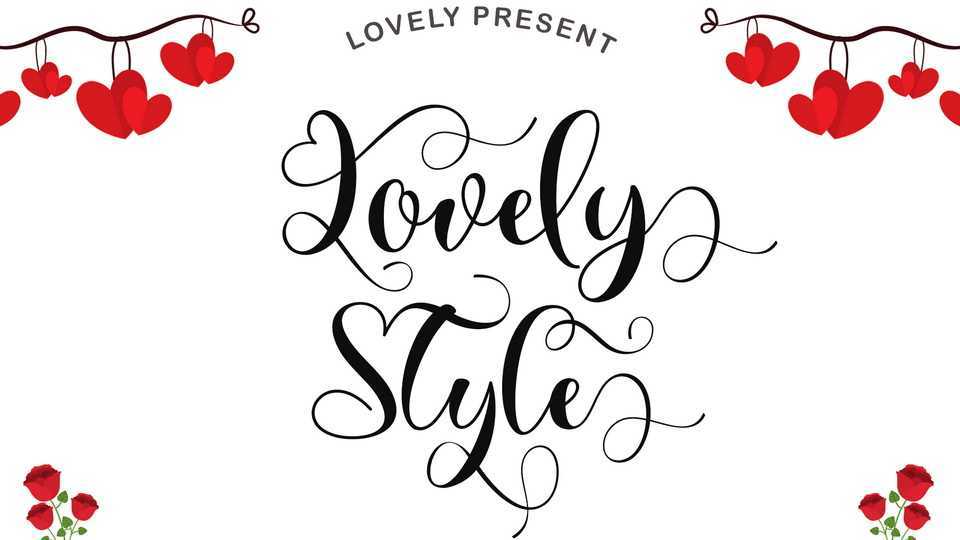
Download Lovely Style font, a very pretty script calligraphy typeface. Lovely Style font is perfect for weddings, valentines, engagements, stickers, banners, posters, invitations, Christmas, easter, romantic moments, quotes and others.